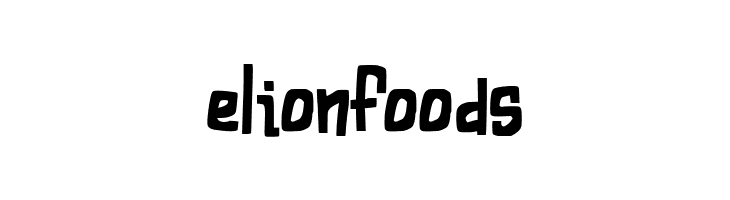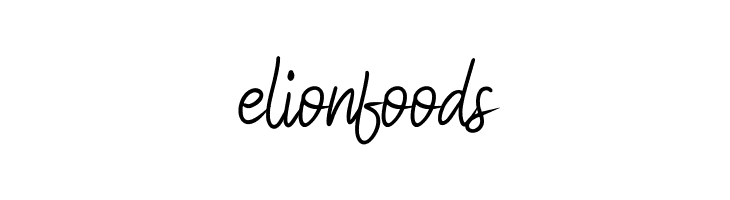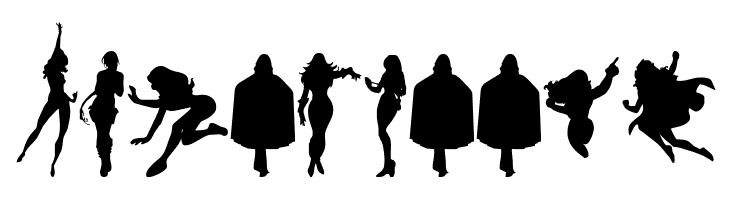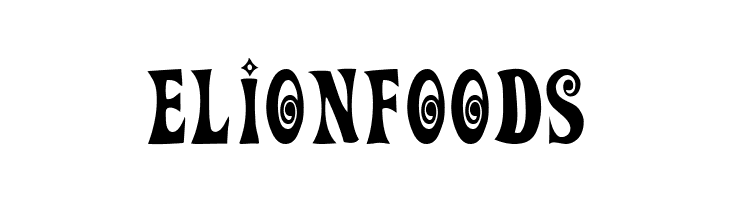
• Action Protocol Italic
( dcoxy - Greg Medina - www.dcoxy.com/ )
A modern, geometric italic font with sharp angles and a futuristic aesthetic.
• Action Women
Silhouetted action poses of women, not a font.
• ActionIs
• Actions
Cartoon action-themed dingbat font with hand-drawn illustrations.
• Activate Oddtype
• Acude FREE
A bold, Gothic-style font with ornate, angular letterforms and dramatic flourishes.
• Acusted FREE
A dynamic and fluid script font with elegant, flowing letterforms.
• AD Nautilus Bold
( www.circografico.com.ar )
A bold, playful font with a whimsical, hand-drawn style.
• Adabra FREE
( Fonts by Vunira Design )
A playful, hand-drawn font with bold, irregular strokes and a whimsical style.
• AdamGorry-Inline
( Fonts by Sentinel Type - James Arboghast )
A modern, inline font with geometric shapes and smooth curves.